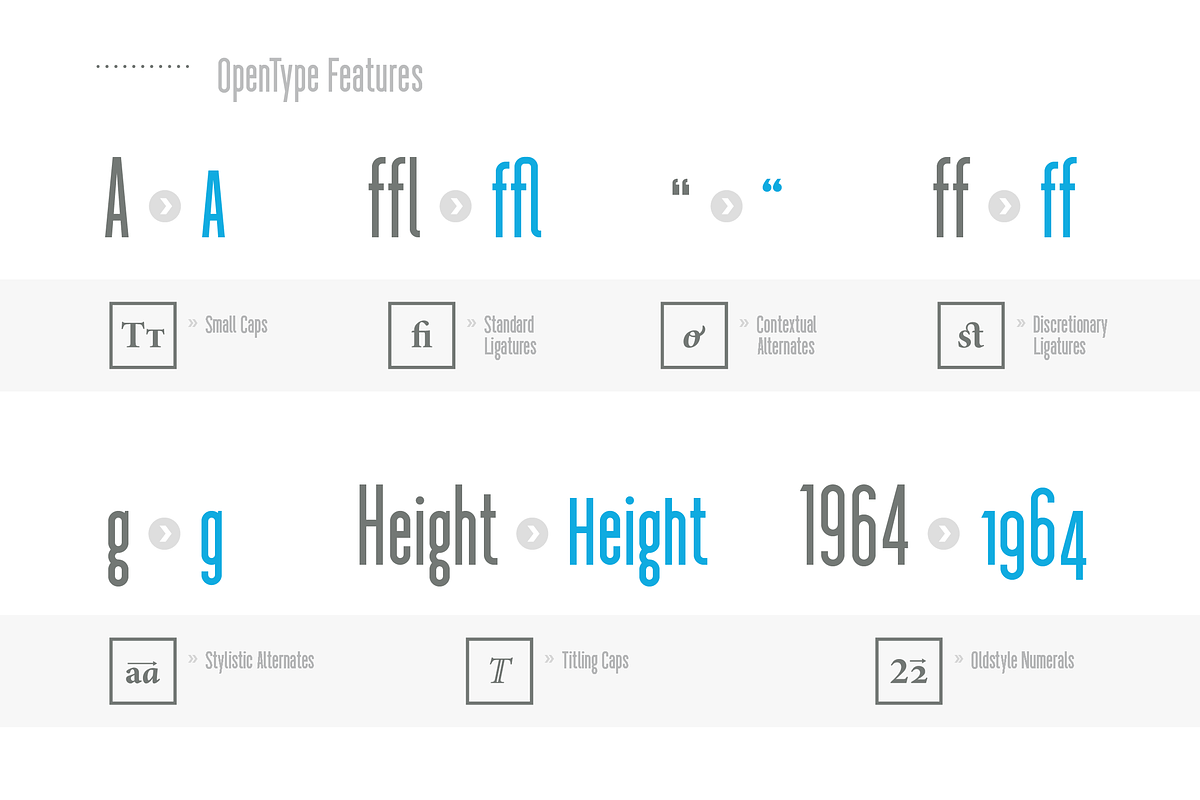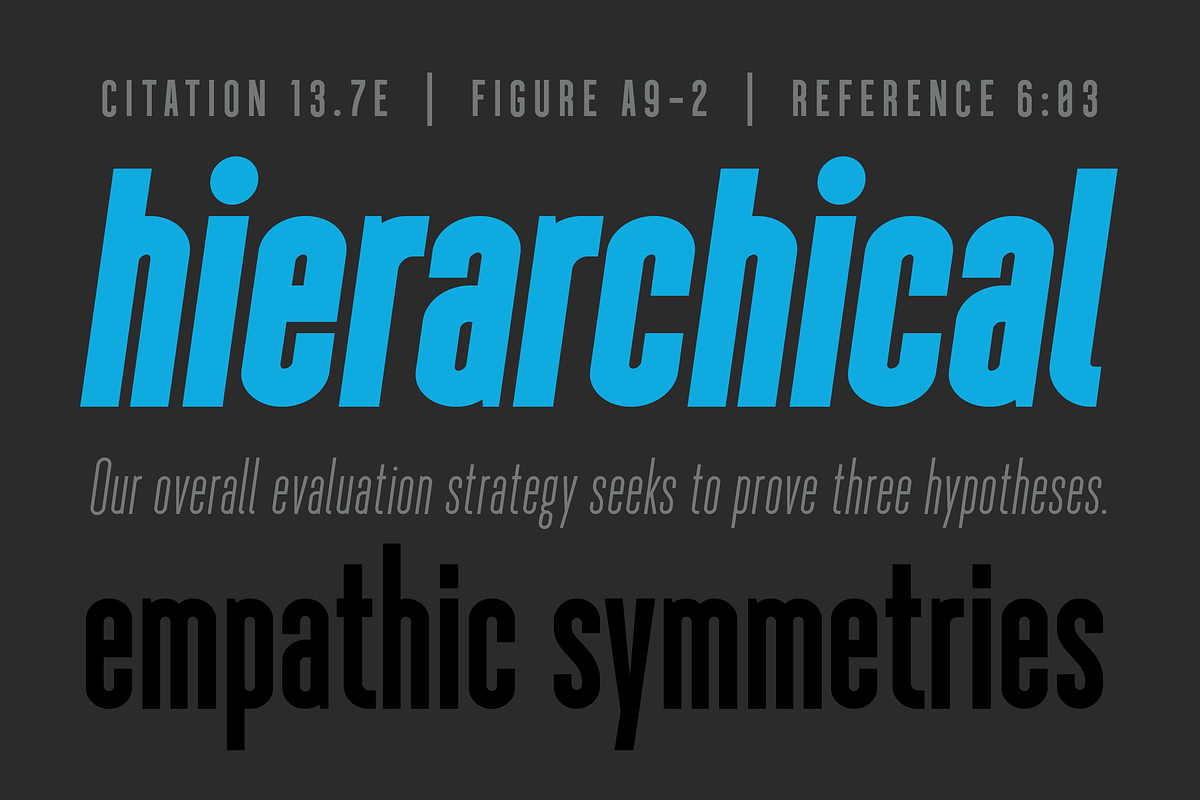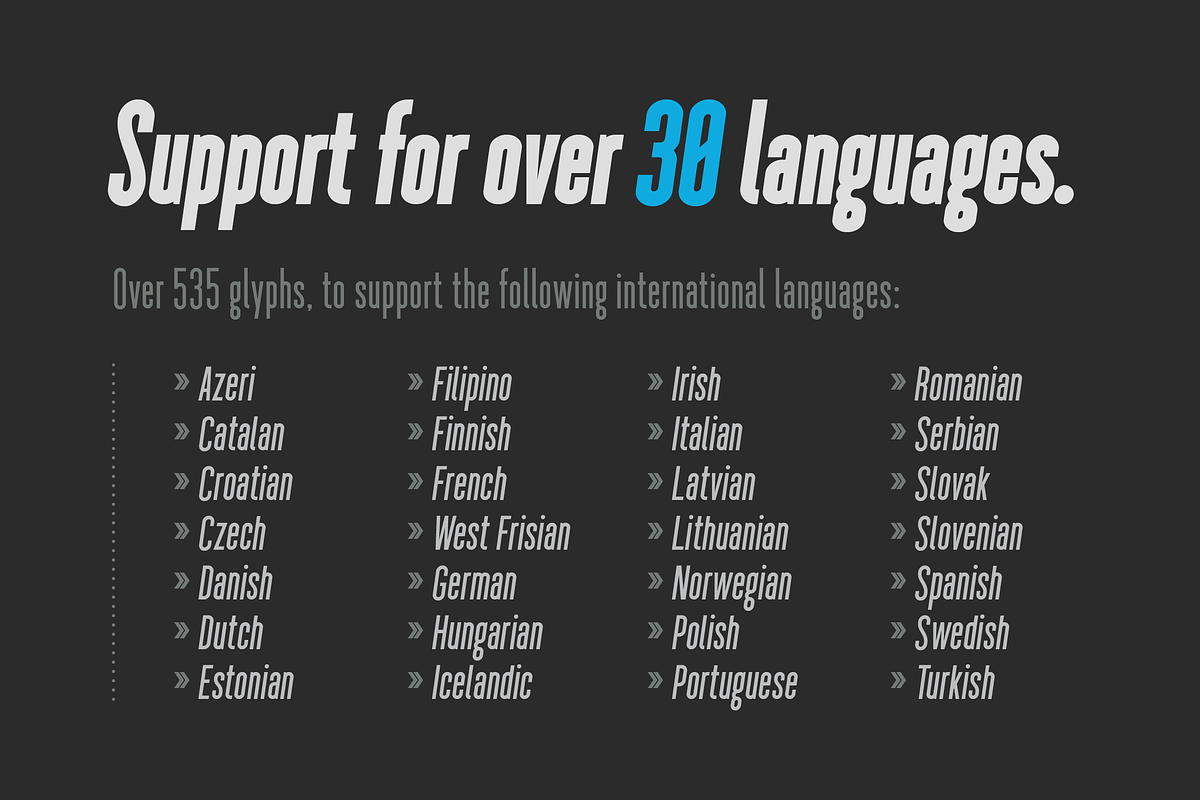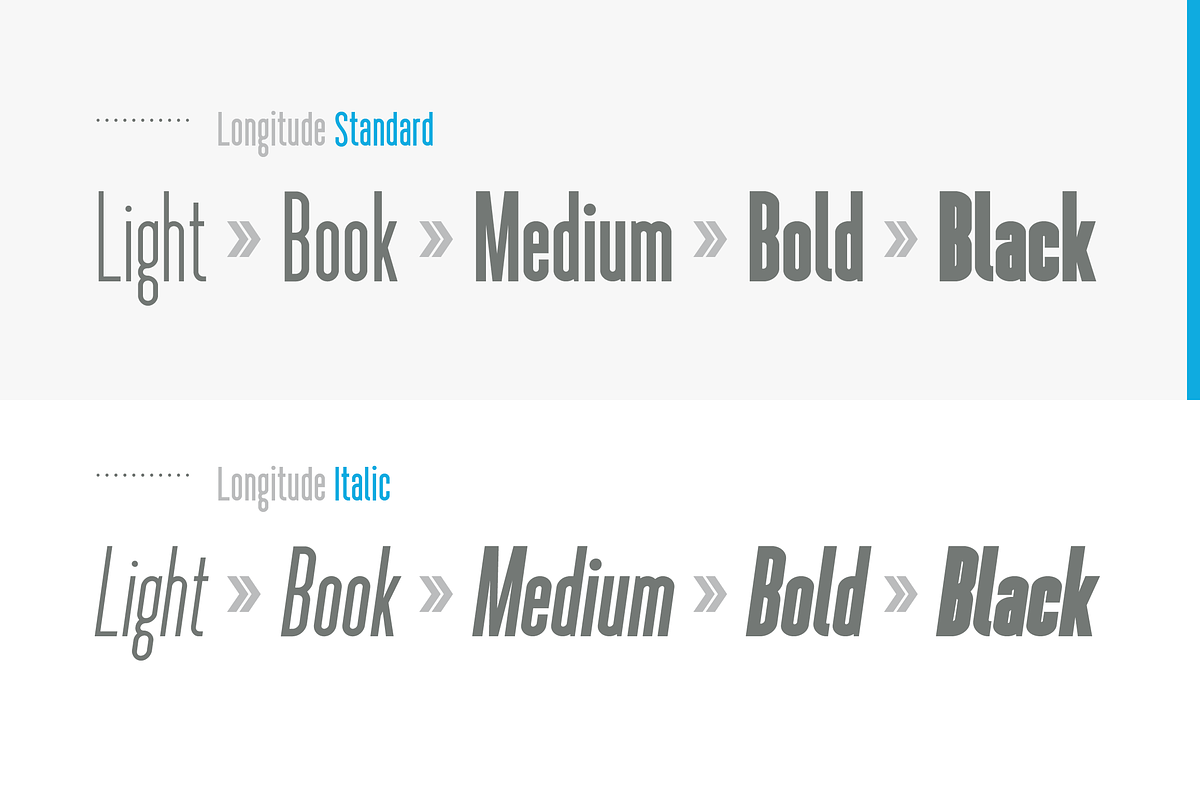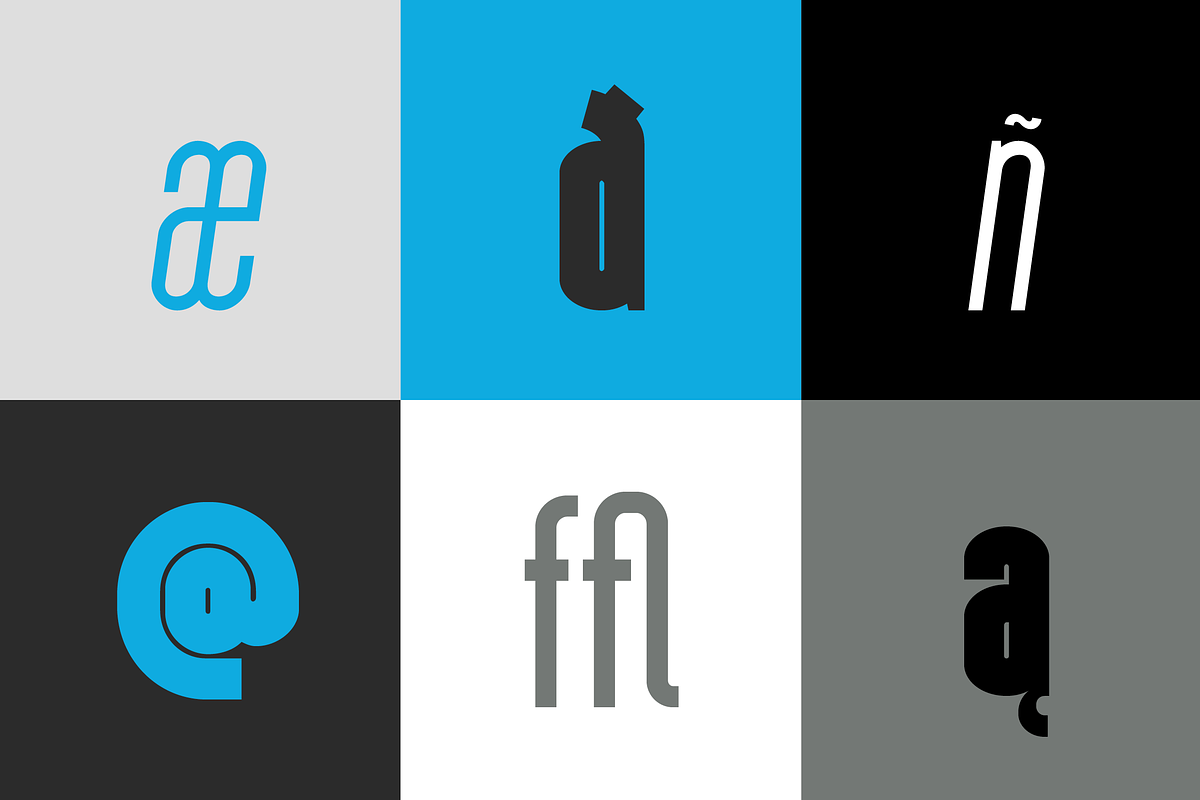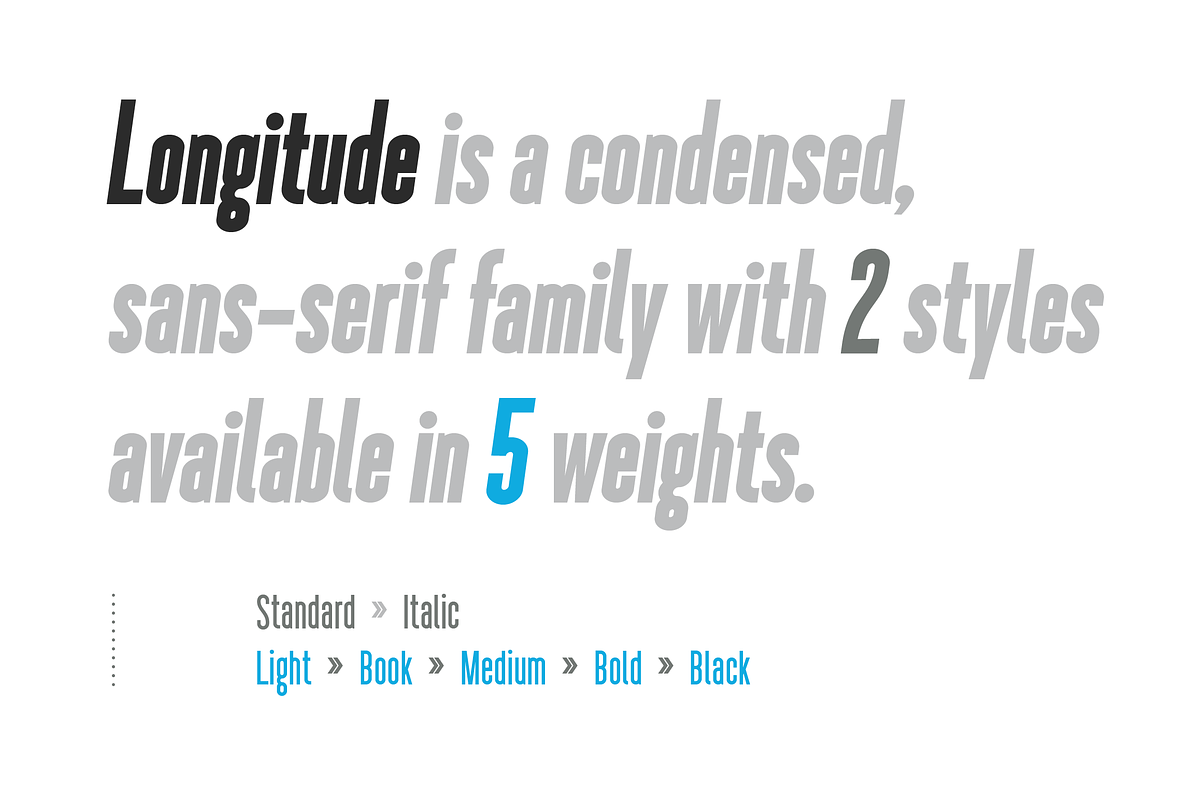
Longitude Font Family
Longitude Font Family by lukelisi is a font selected for branding, posters, packaging, typography.
- This extremely versatile family contains a wide variety of unique OpenType features including Standard Ligatures, Contextual Alternates, Dis
- The family's extensive character map includes 535 glyphs and is optimized for over 30 world languages.